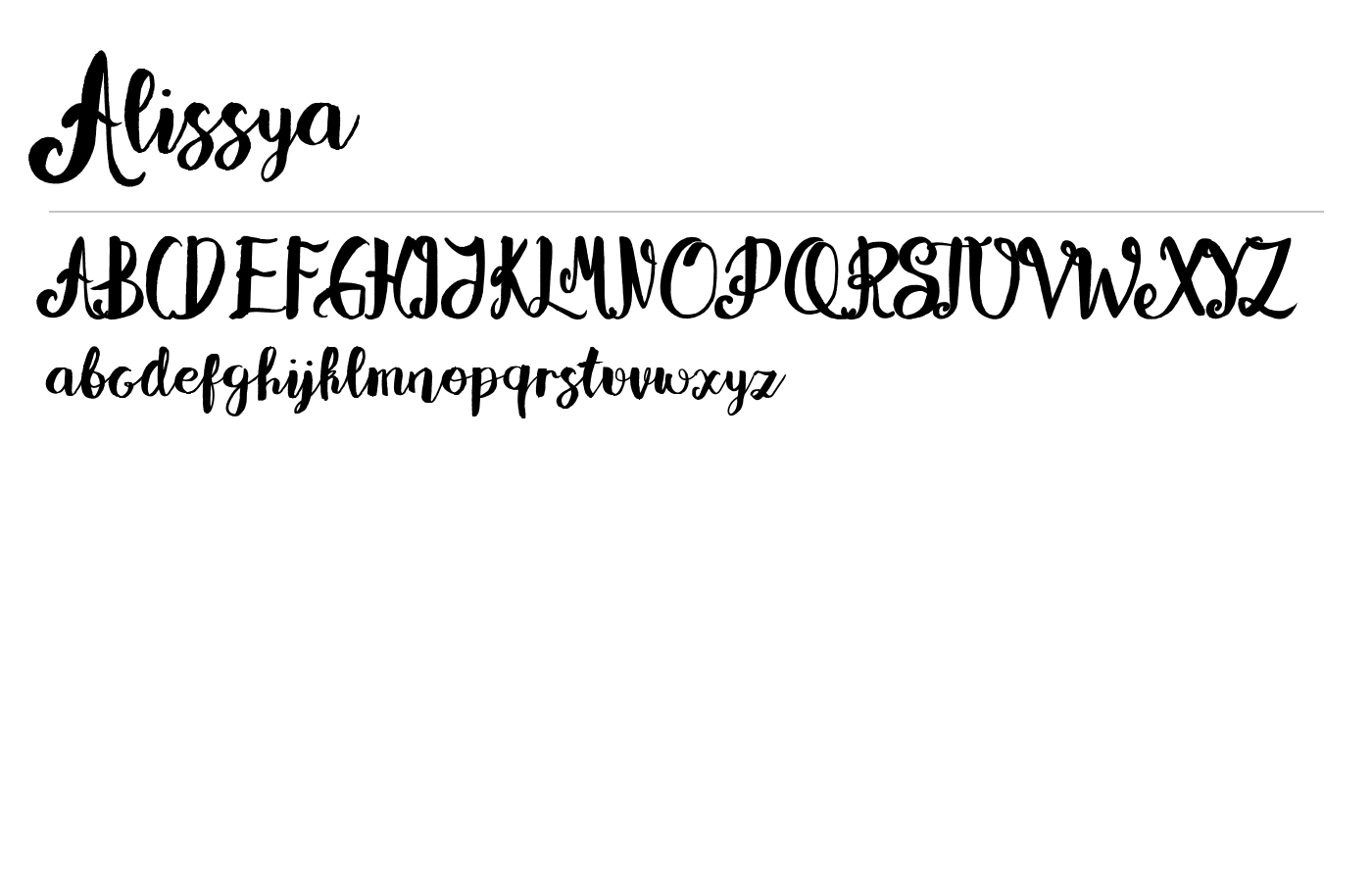
Alissya is a lively, handwritten script font with bold, brush-like strokes and playful swirls, giving it a charming and artistic feel. Its high contrast between thick and thin lines, combined with elegant letterforms, makes it perfect for creative branding, invitations, and eye-catching headlines that want to convey warmth and personality. This font works well where a handmade, expressive touch is desired, adding a sense of fun and individuality.
Alissya Font
About Alissya Font
| Font family | Alissya Font |
| Designer | MaulanaCreative |